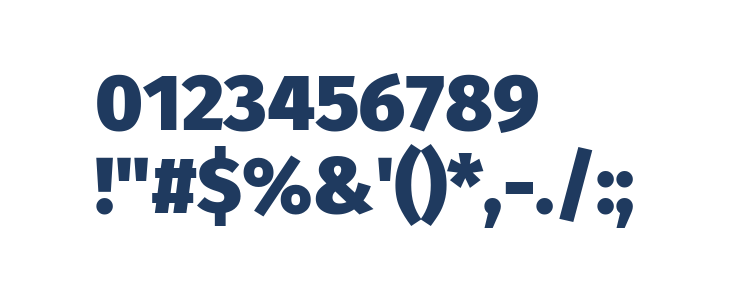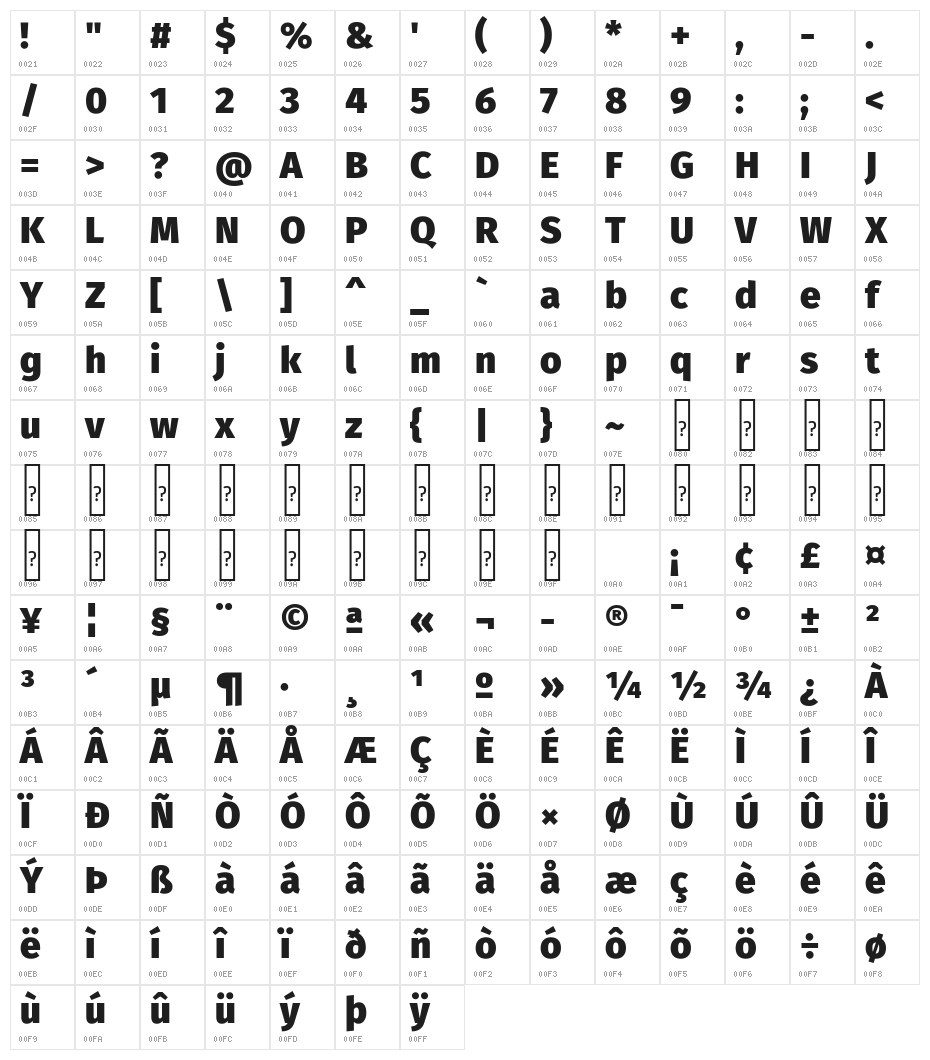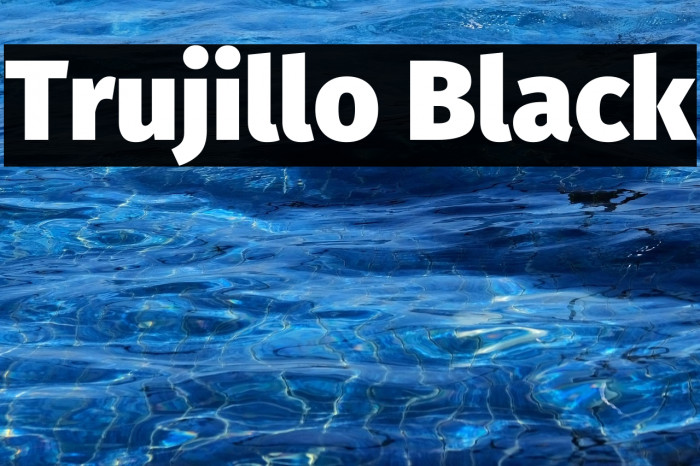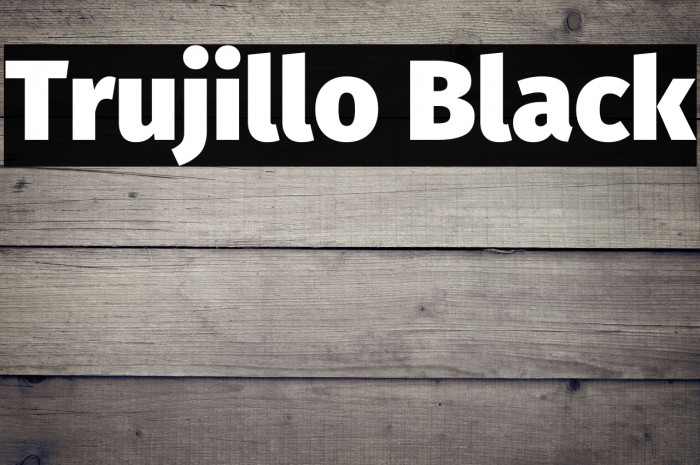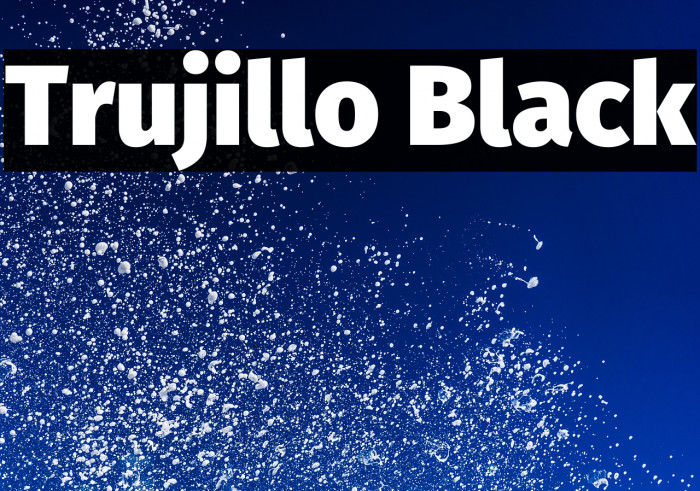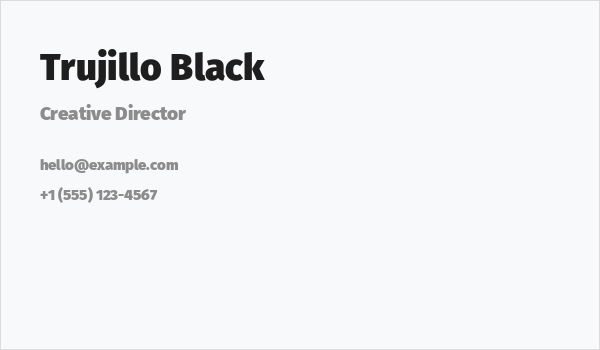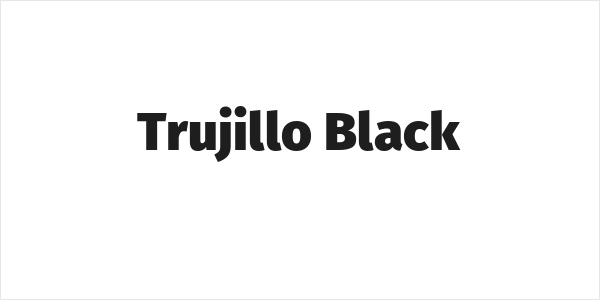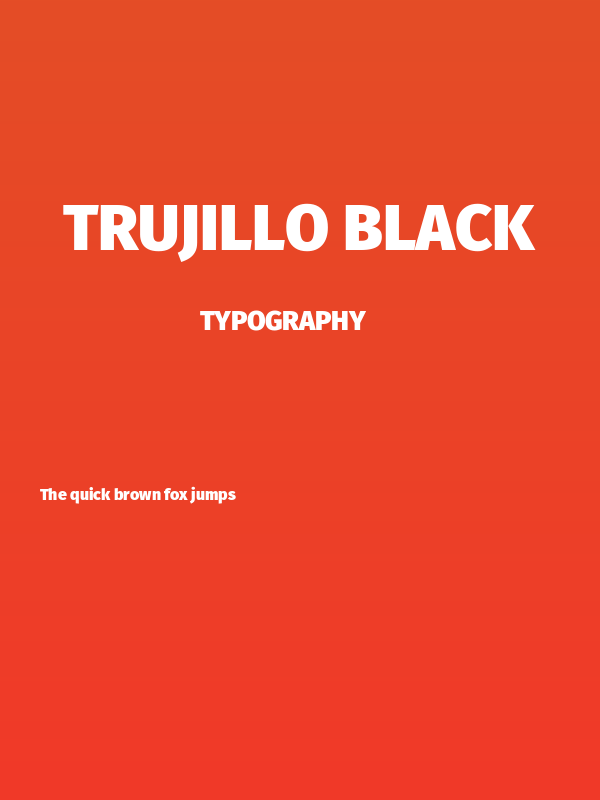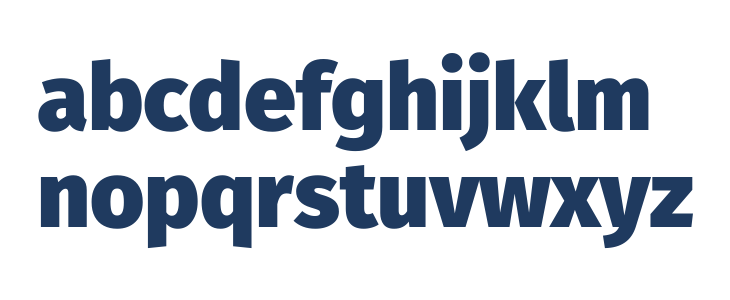
Trujillo Black Font
Trujillo Black Description
This font is a bold and impactful typeface characterized by its thick, uniform strokes and strong presence. The uppercase letters are robust and commanding, making them ideal for attention-grabbing headlines. The lowercase letters maintain the same boldness, ensuring consistency across different text sizes. The numerals are clear and easy to read, while the special characters are well-integrated, providing a cohesive look. This typeface is designed to stand out, making it perfect for projects that require a strong visual impact.
| Proposed Projects | Ideal for headlines, posters, branding, and advertising where a strong visual impact is needed. |